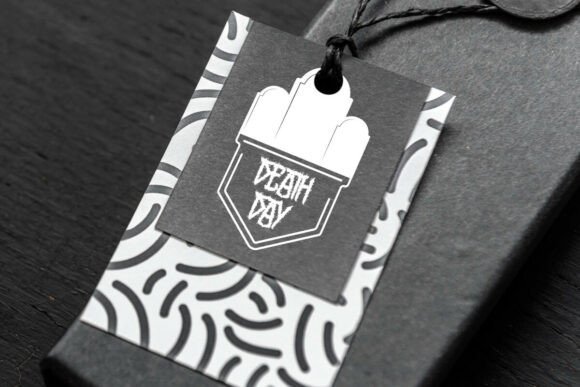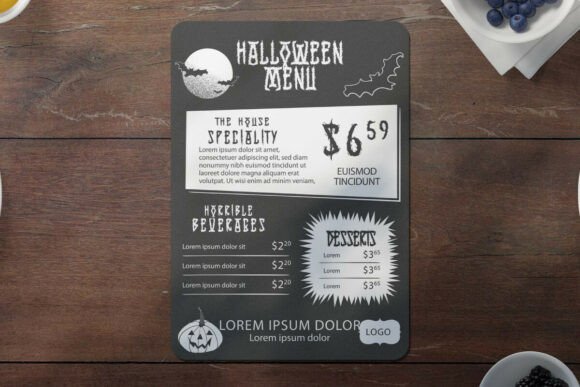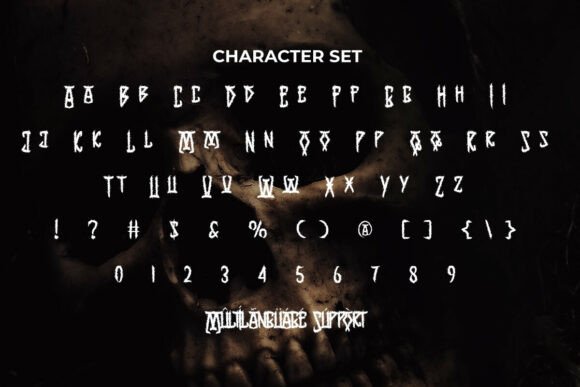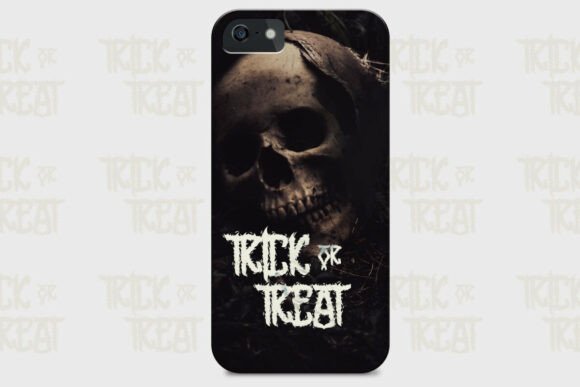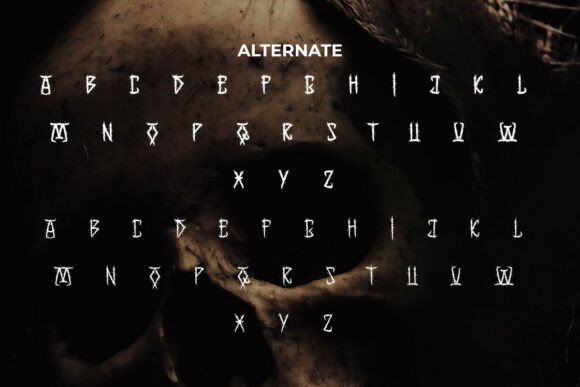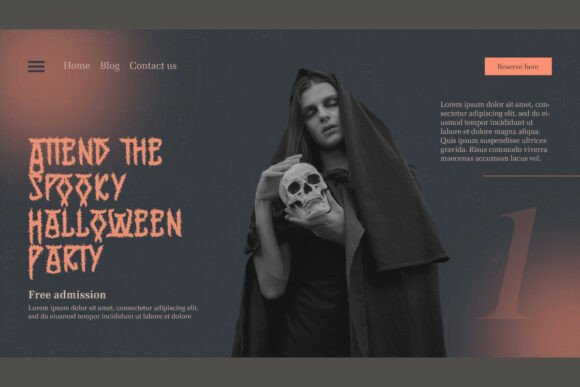
Introduction to Death Day Font
Death Day – A Brutal Death Metal Display Font Death Day is an intensely brutal and specialized death metal display font, featuring jagged, chaotic edges that embody the raw, primal energy of the heavy music scene.
With its aggressive, spiked terminals and distressed, custom letterforms, the Death Day font is immediately recognizable as the definitive style for extreme music genres, horror themes, and underground culture This display font is essential for album covers, band merchandise, horror movie titles, and dark-themed event promotions that require a fierce, unapologetic aesthetic.
Key Features of Death Day Font